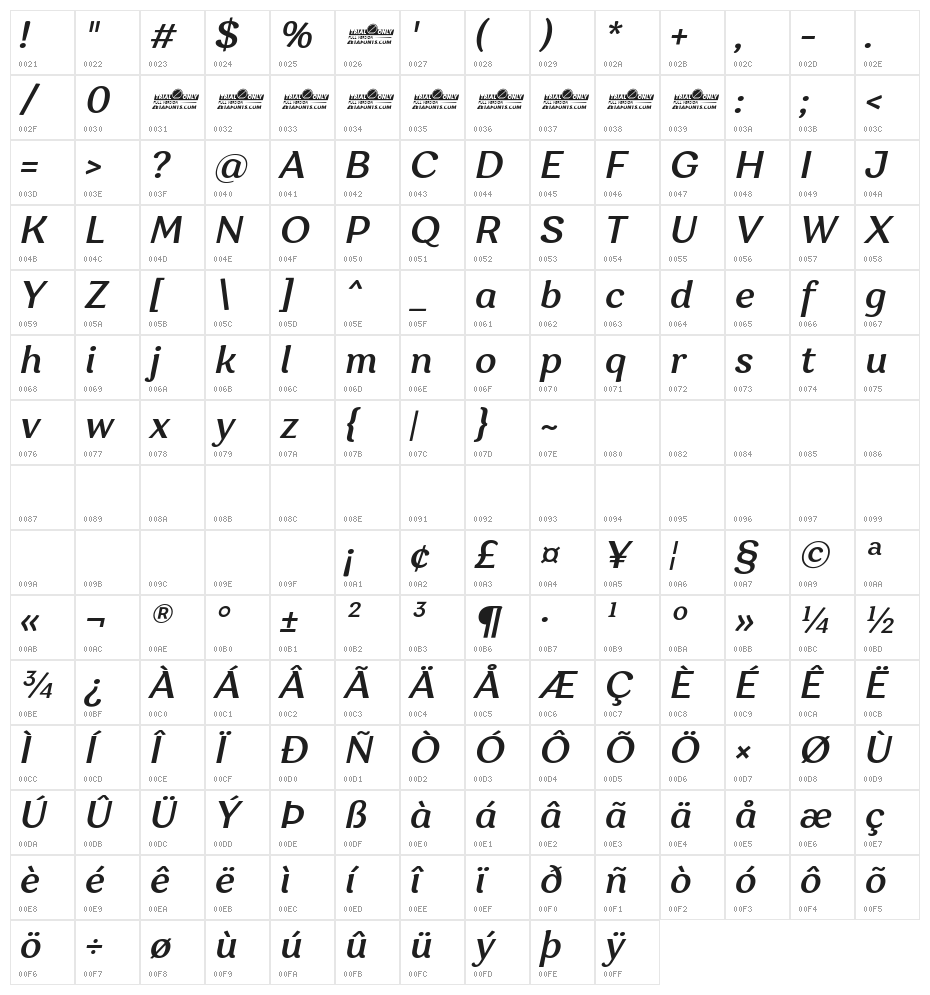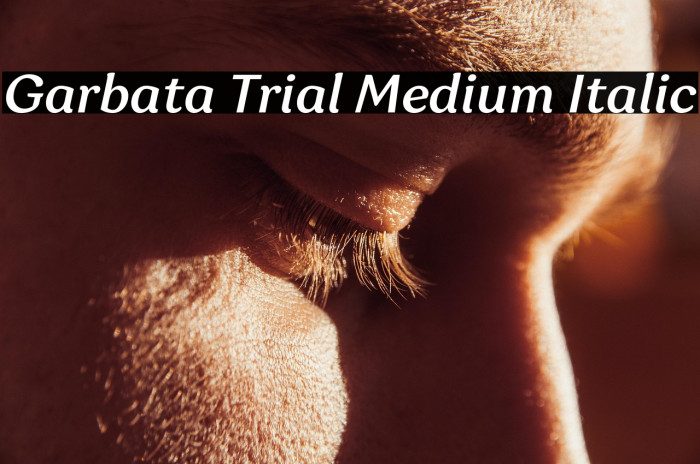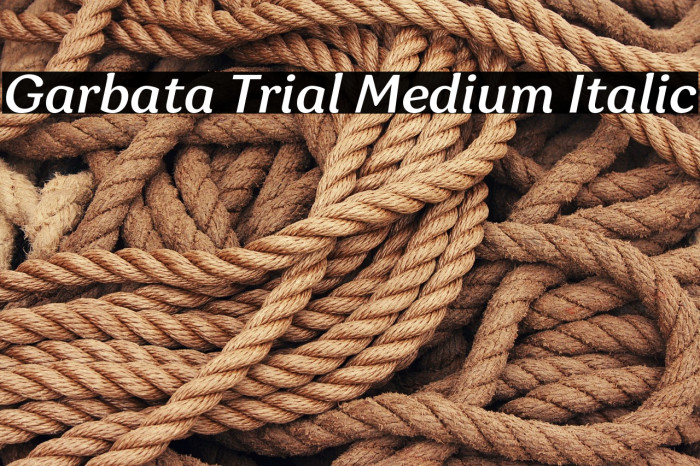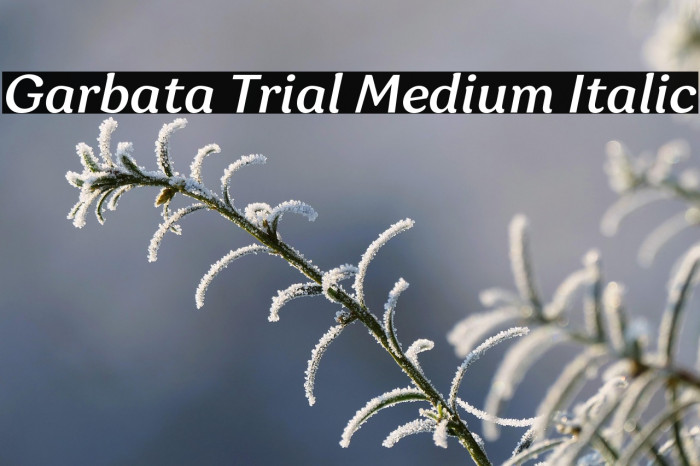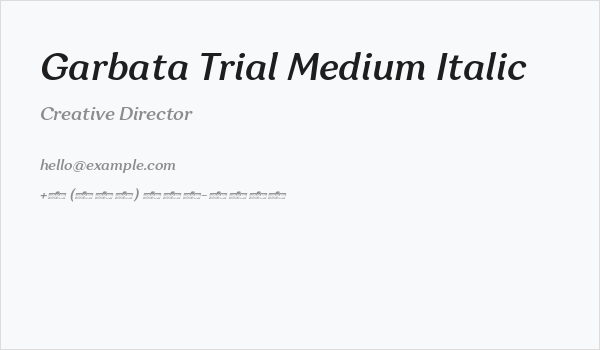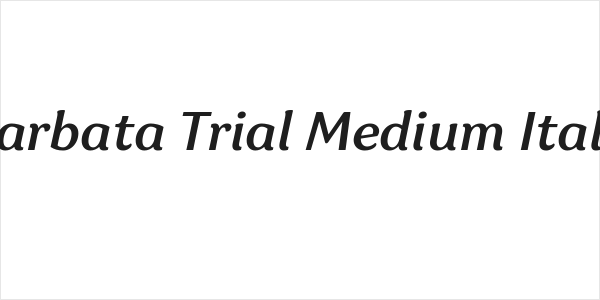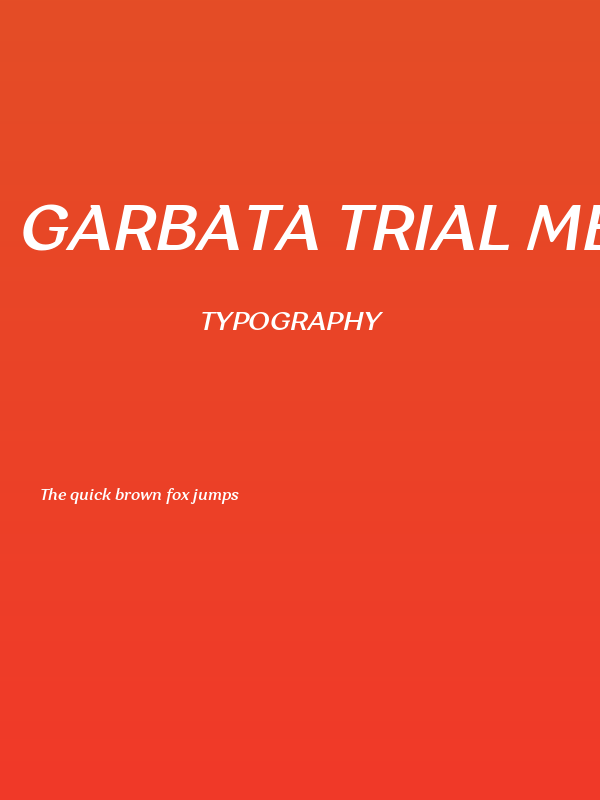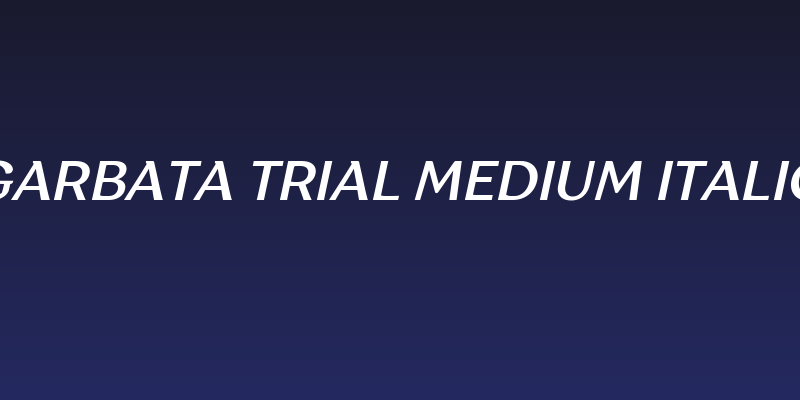
Garbata Trial Medium Italic Font
Garbata Trial Medium Italic Description
This font features a sleek, modern design with a slight italic slant, giving it a dynamic and elegant appearance. The characters are well-proportioned, with smooth curves and clean lines that enhance readability. The uppercase letters maintain a consistent height, while the lowercase letters have a balanced x-height, contributing to a harmonious look. The numerals are clear and distinct, making them suitable for various applications. Special characters are included, adding versatility to the font's usage. Overall, this font combines style and functionality, making it ideal for contemporary design projects.
Proposed ProjectsIdeal for branding, editorial design, advertising, and digital media.